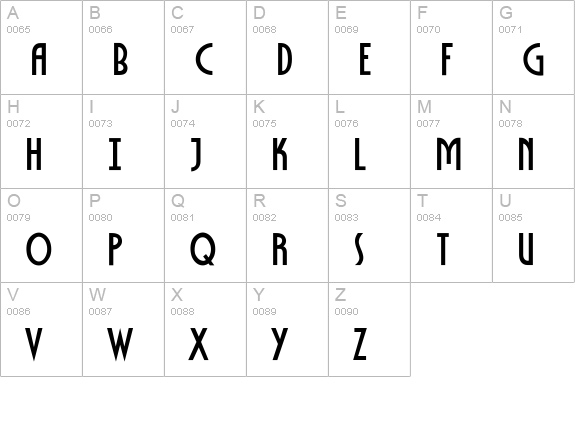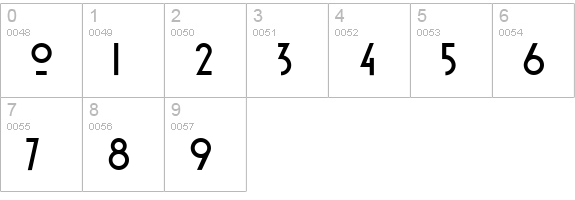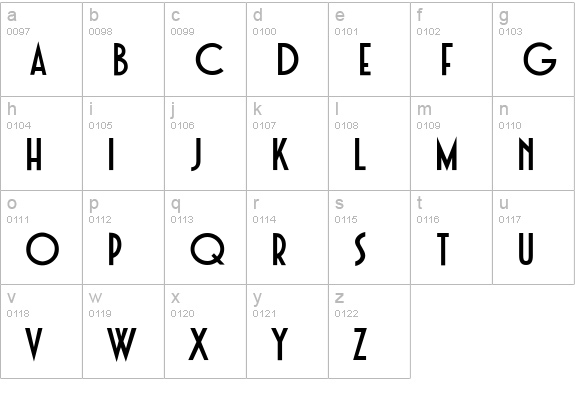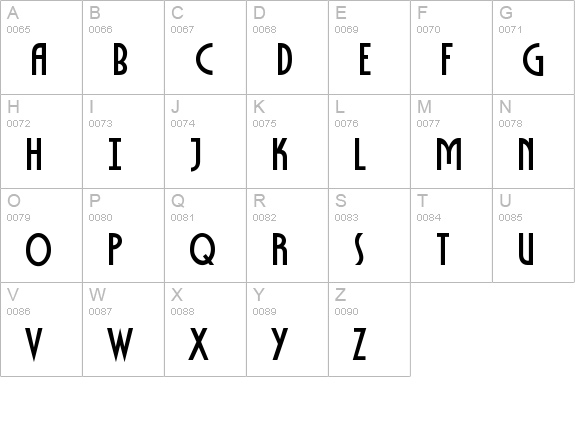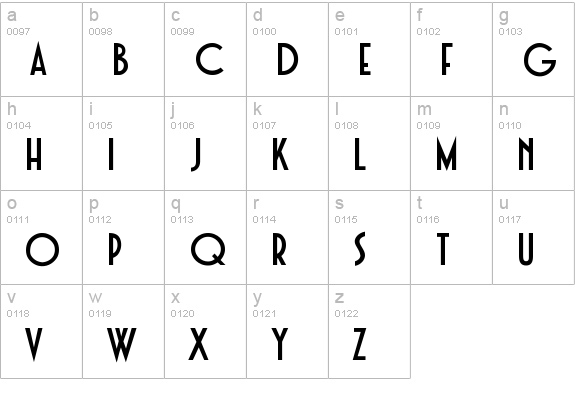
CCDutchCourage-Lite Font Details
Introducing CCDutchCourage-Lite, a modern and stylish font that exudes confidence and sophistication. This elegant typeface features clean lines and sharp angles, making it perfect for a wide range of design projects. Whether you're creating logos, branding materials, or website headers, CCDutchCourage-Lite will add a touch of class to your work. The best part? CCDutchCourage-Lite is completely free to download at FontsMarket.com. That's right, you can elevate your designs with this premium font without spending a dime. Don't miss out on this opportunity to enhance your projects with CCDutchCourage-Lite's unique charm and versatility. Download it now and let your creativity shine!